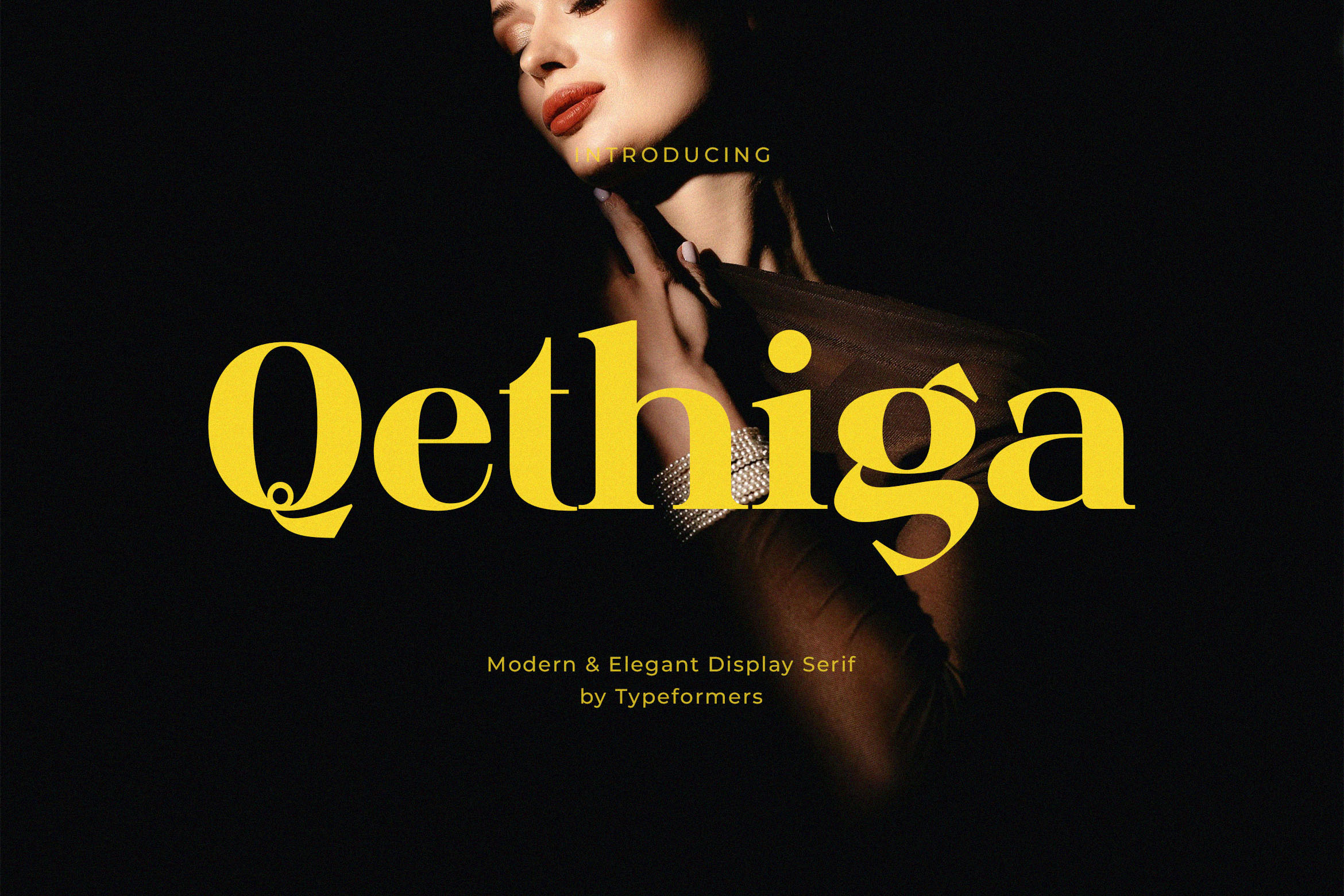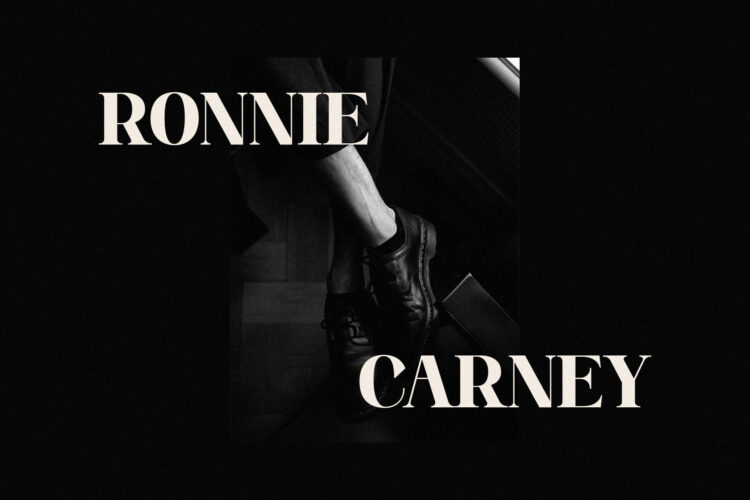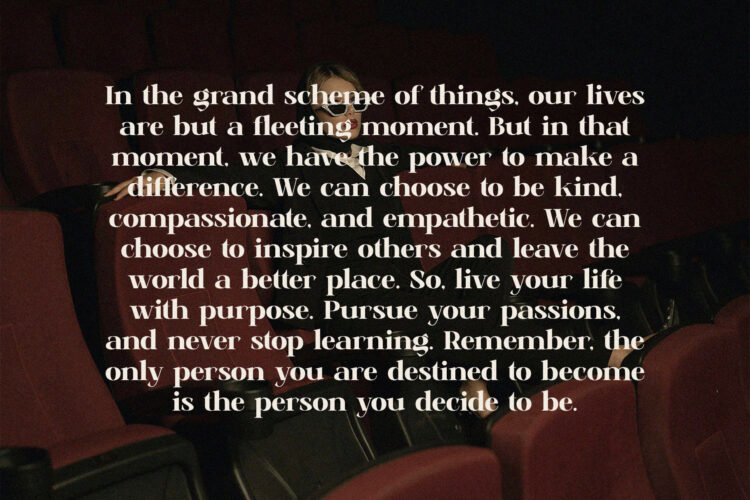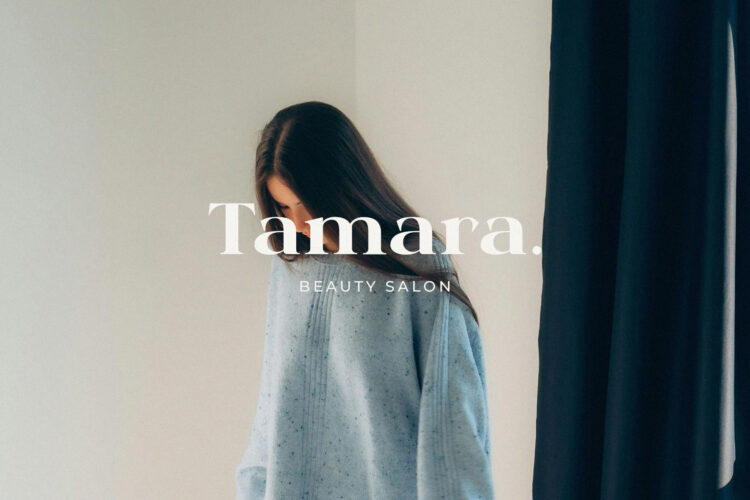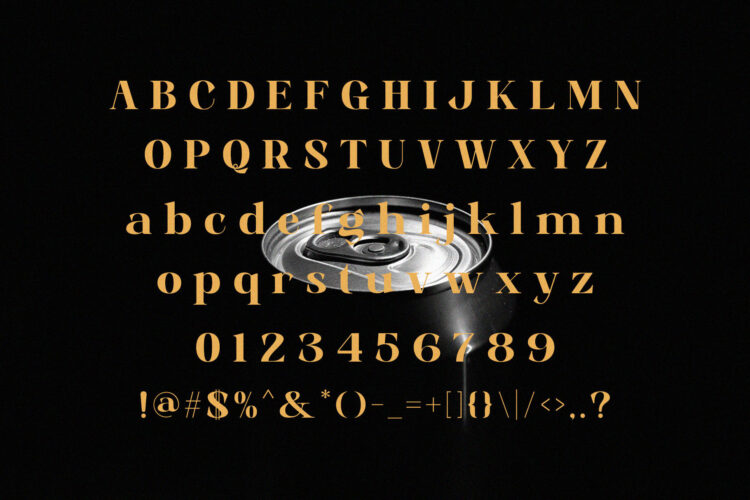
Introducing Qethiga – Modern Elegant Serif.
Qethiga is a modern and simple font, best used as a display for headings, logos, branding, magazines, product packaging and invitations.